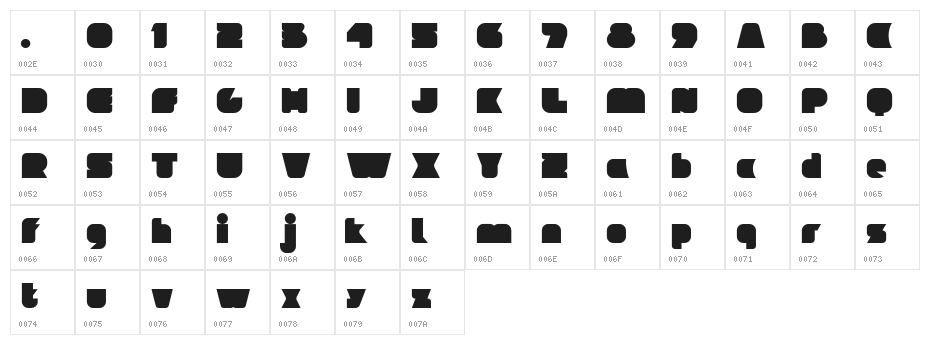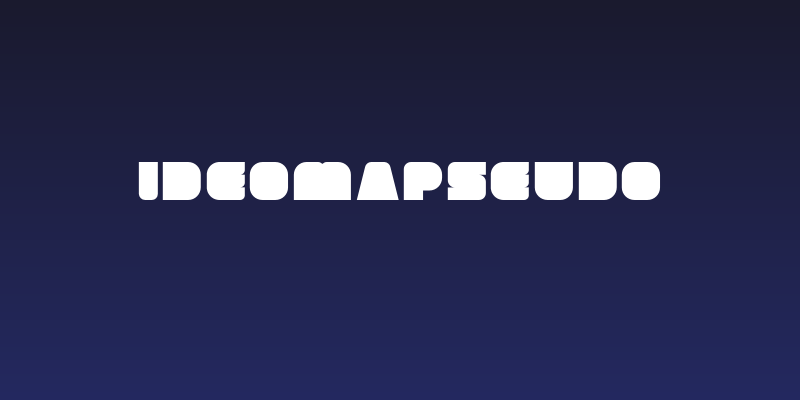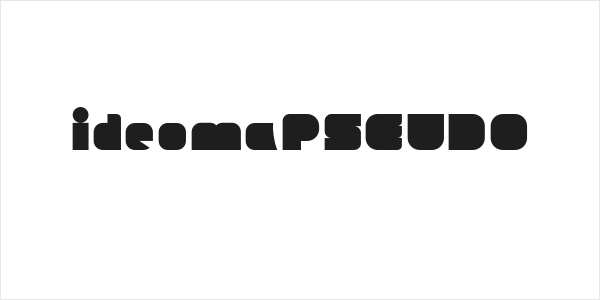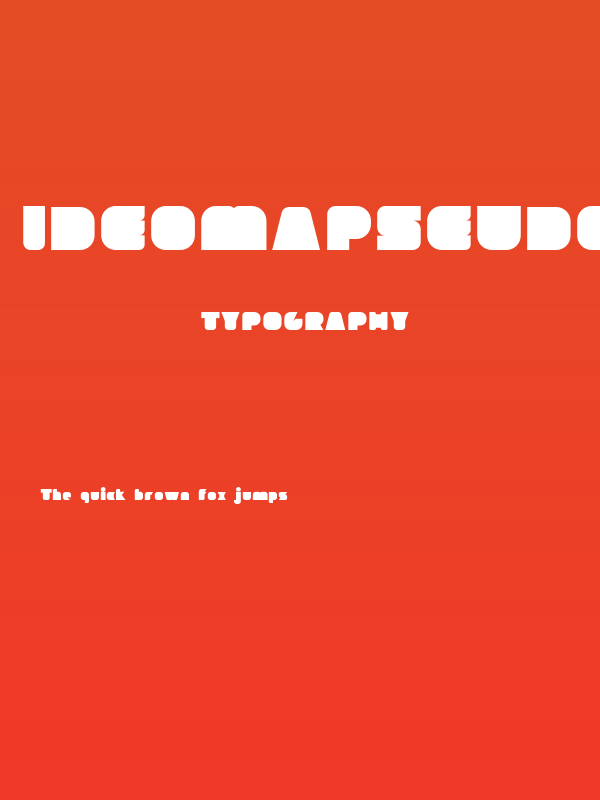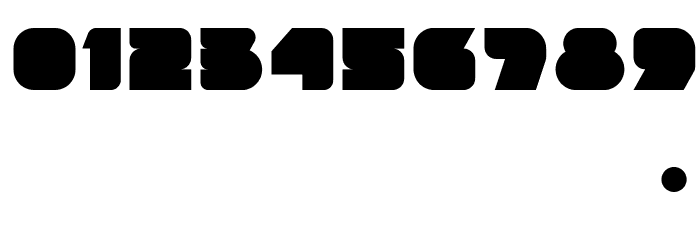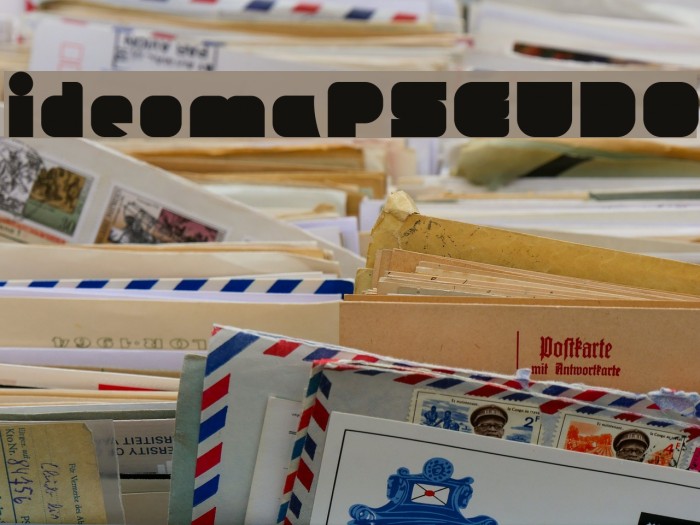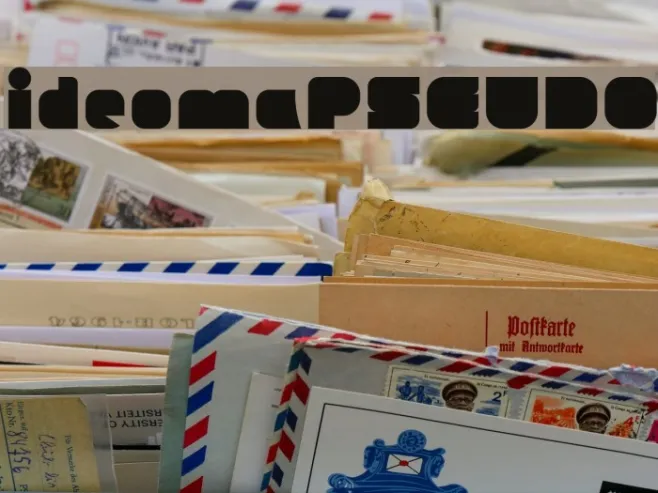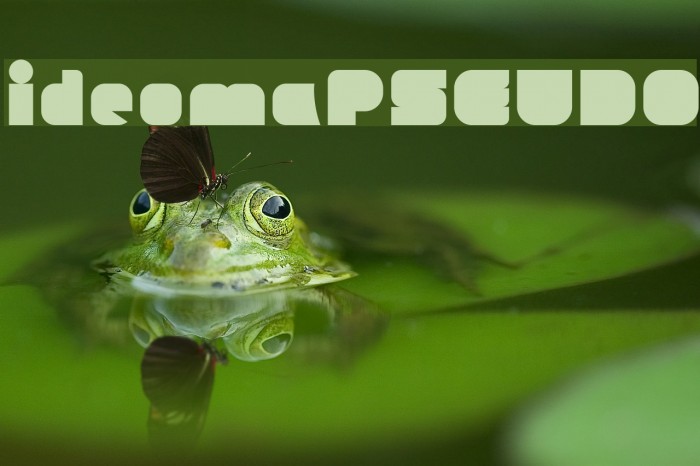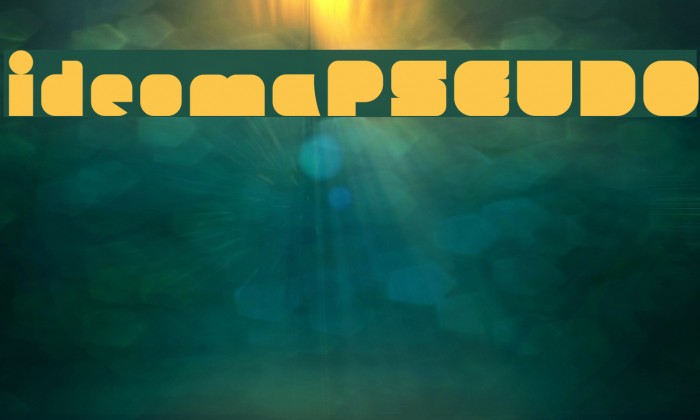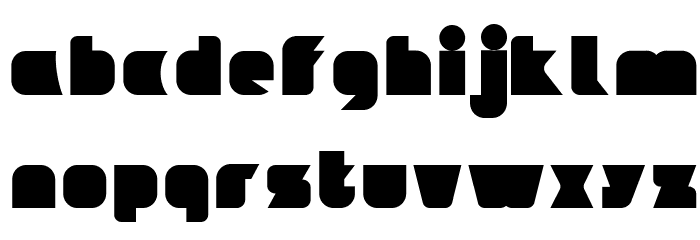
ideomaPSEUDO Font
ideomaPSEUDO Description
This font features a bold, geometric design with strong, angular shapes and a heavy weight. The characters are constructed with solid, block-like forms, creating a striking and impactful appearance. The uppercase and lowercase letters maintain a consistent style, with minimal curves and sharp edges. The numbers and special characters follow the same bold and geometric aesthetic, ensuring uniformity across all glyphs. This font's unique style makes it stand out, offering a modern and futuristic feel.
| Proposed Projects | Ideal for branding, posters, headlines, and any design project that requires a strong visual impact. |